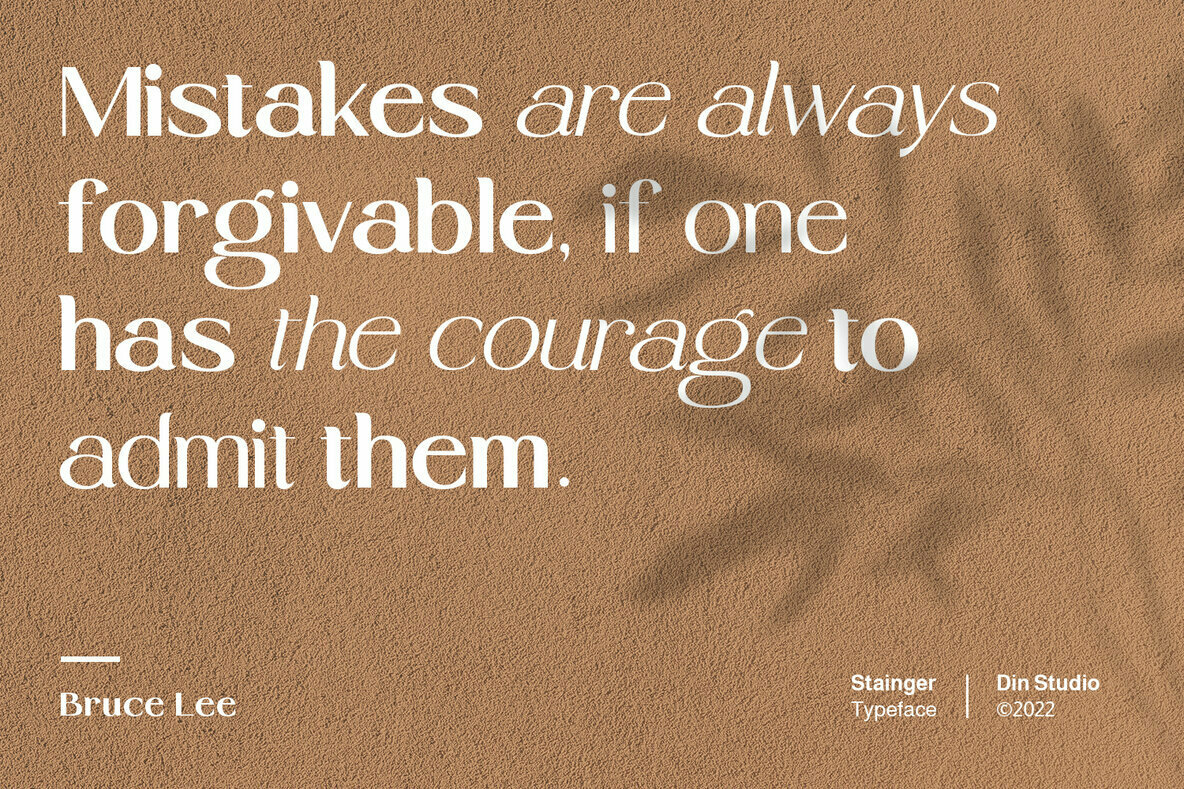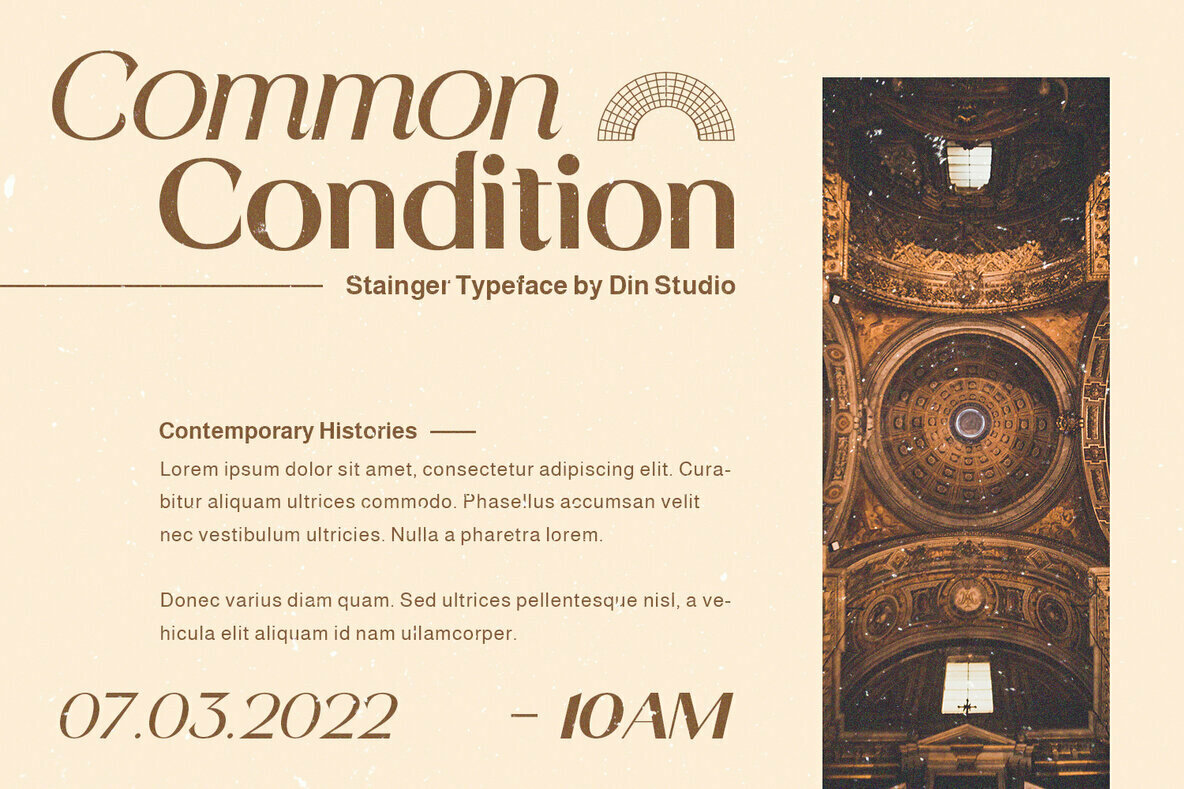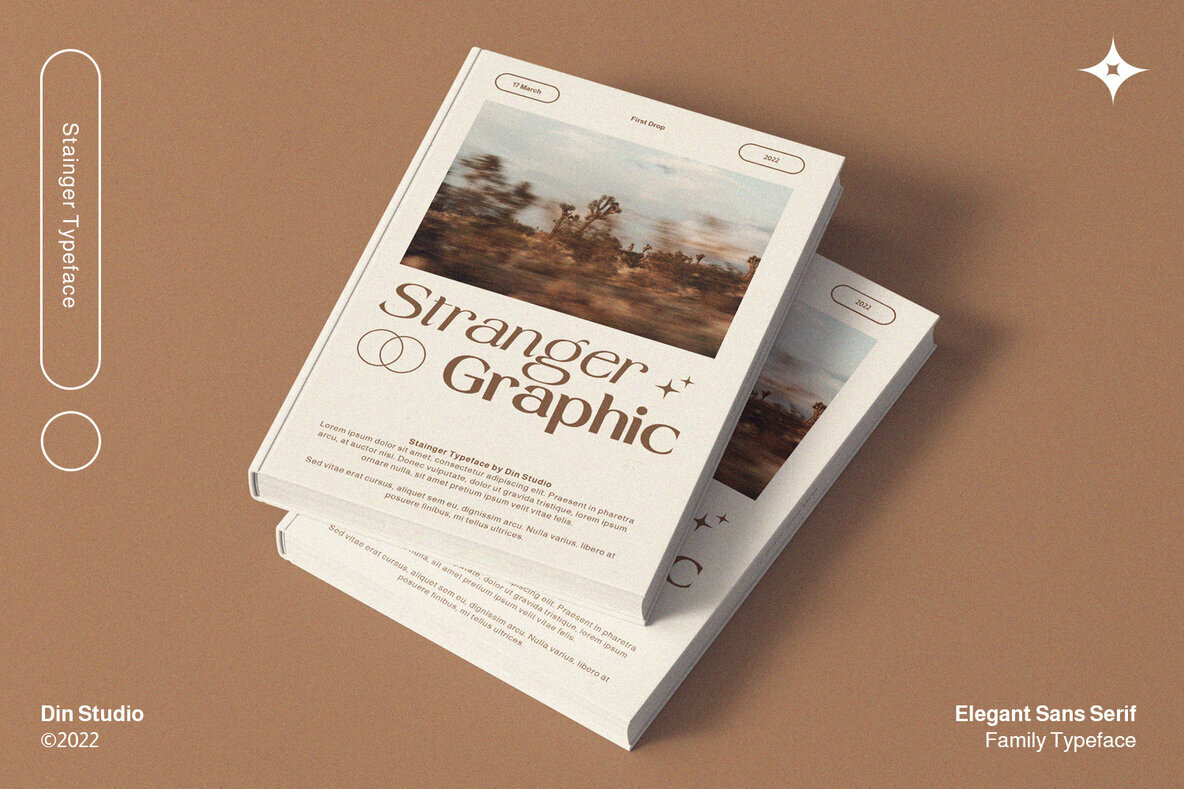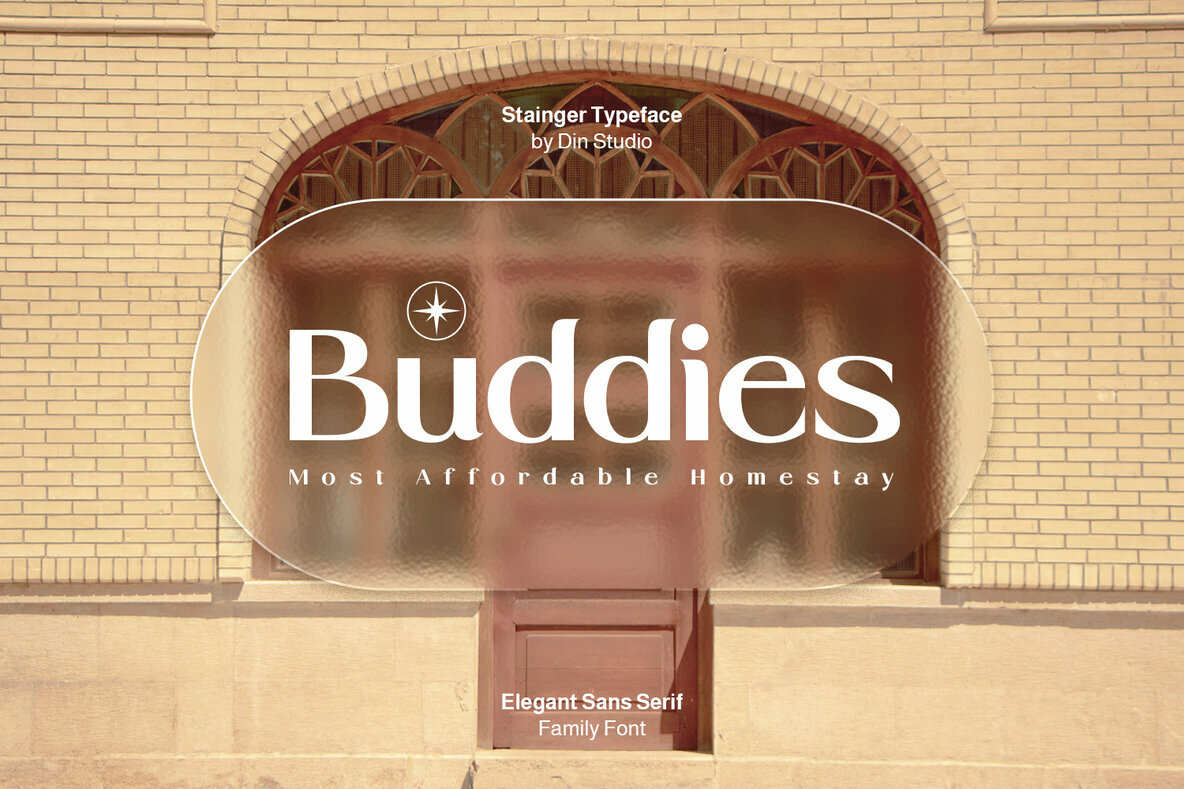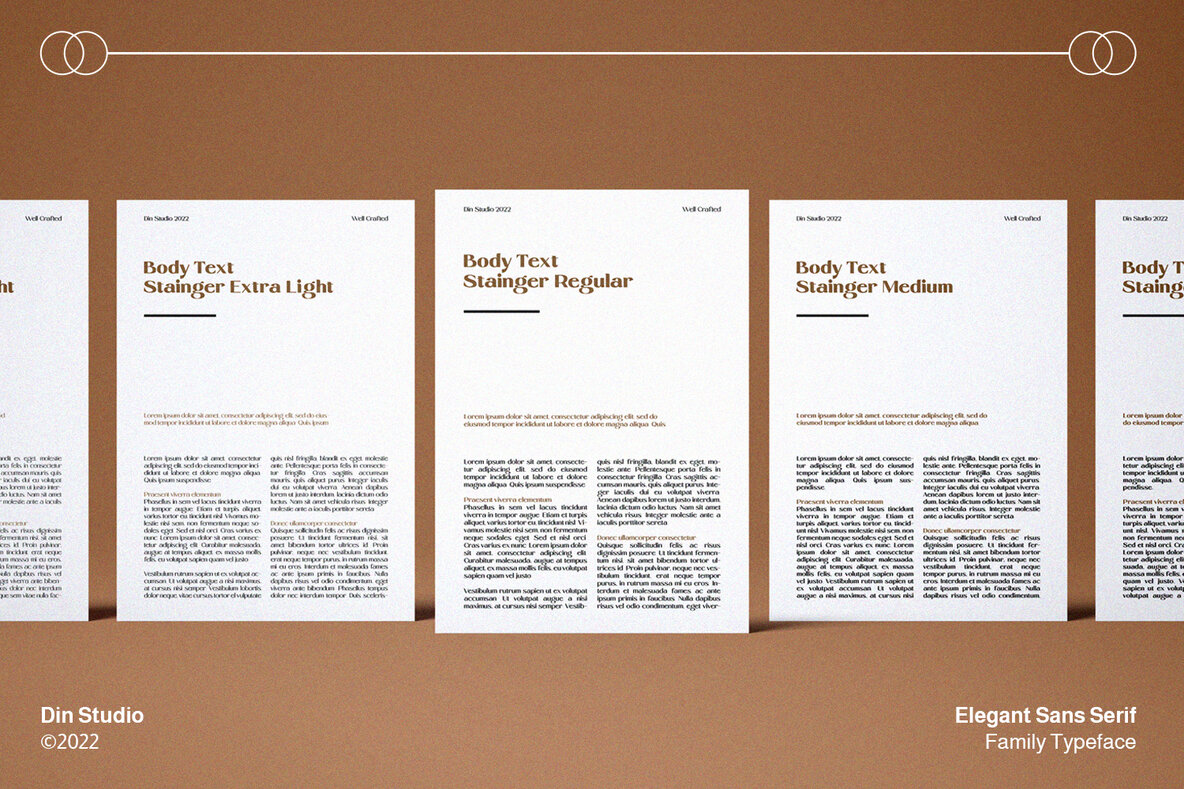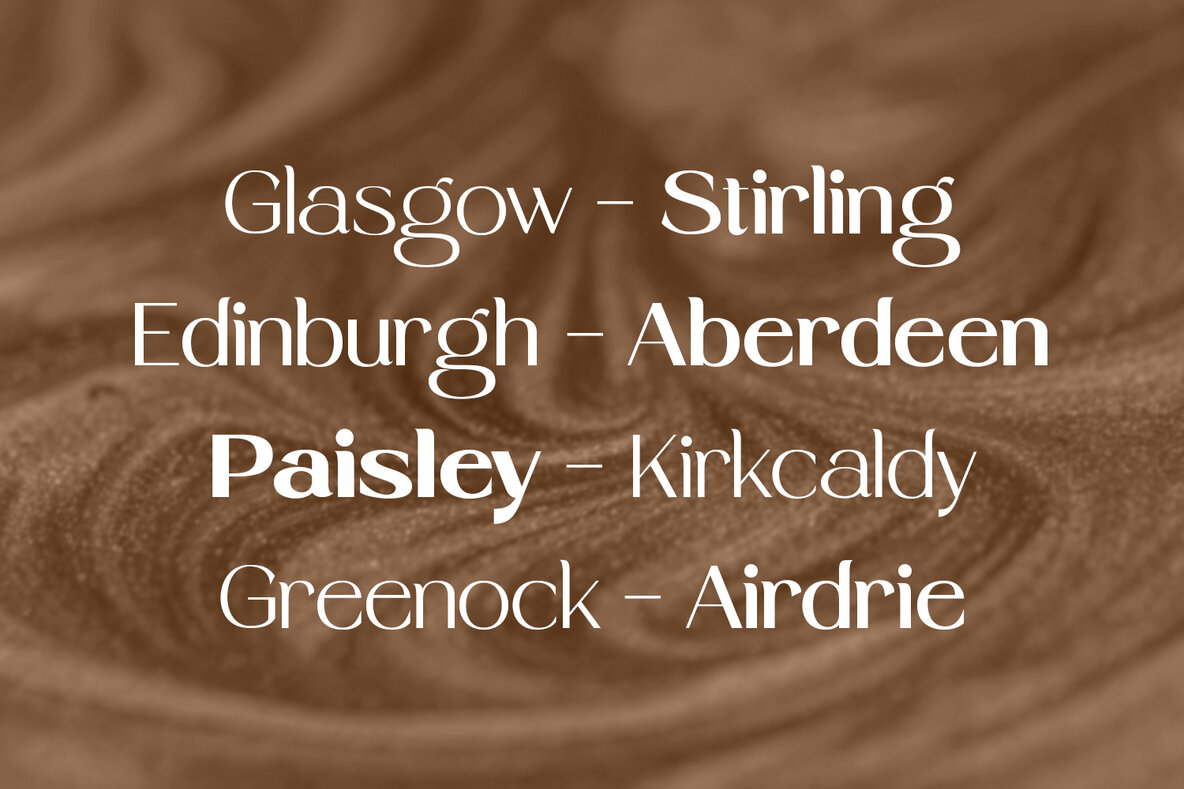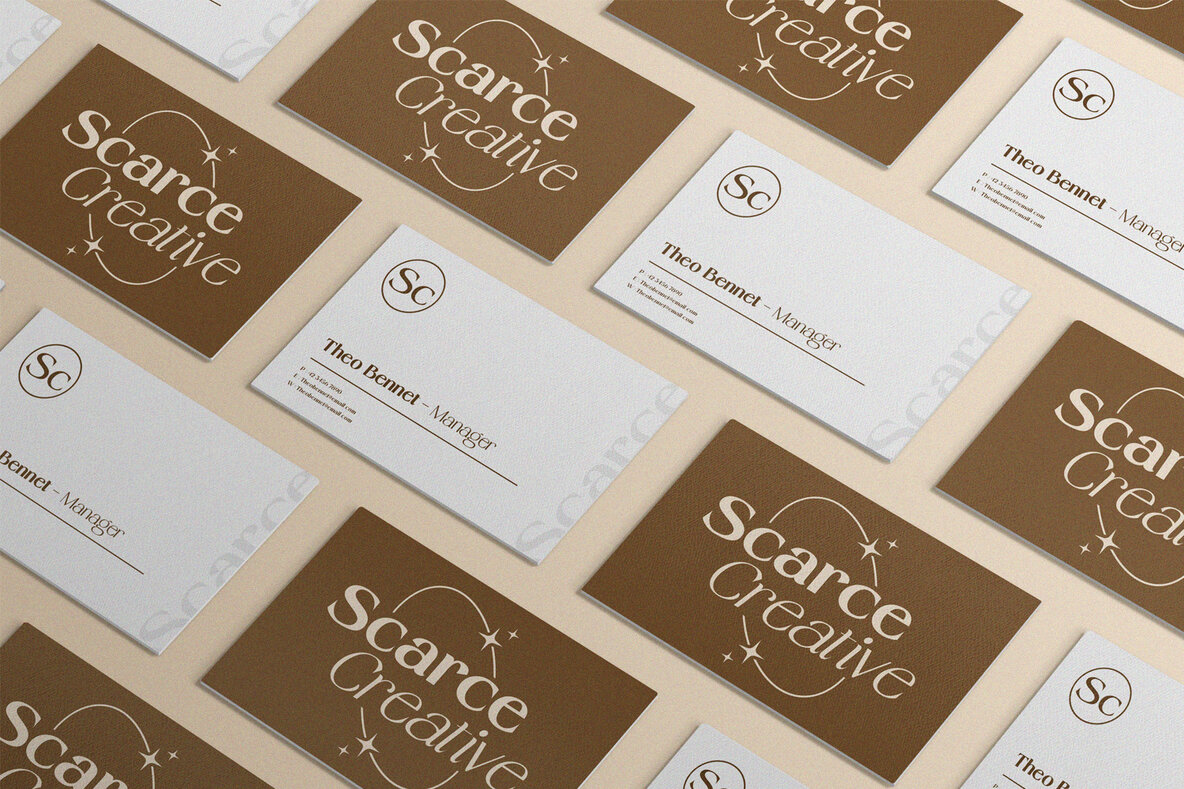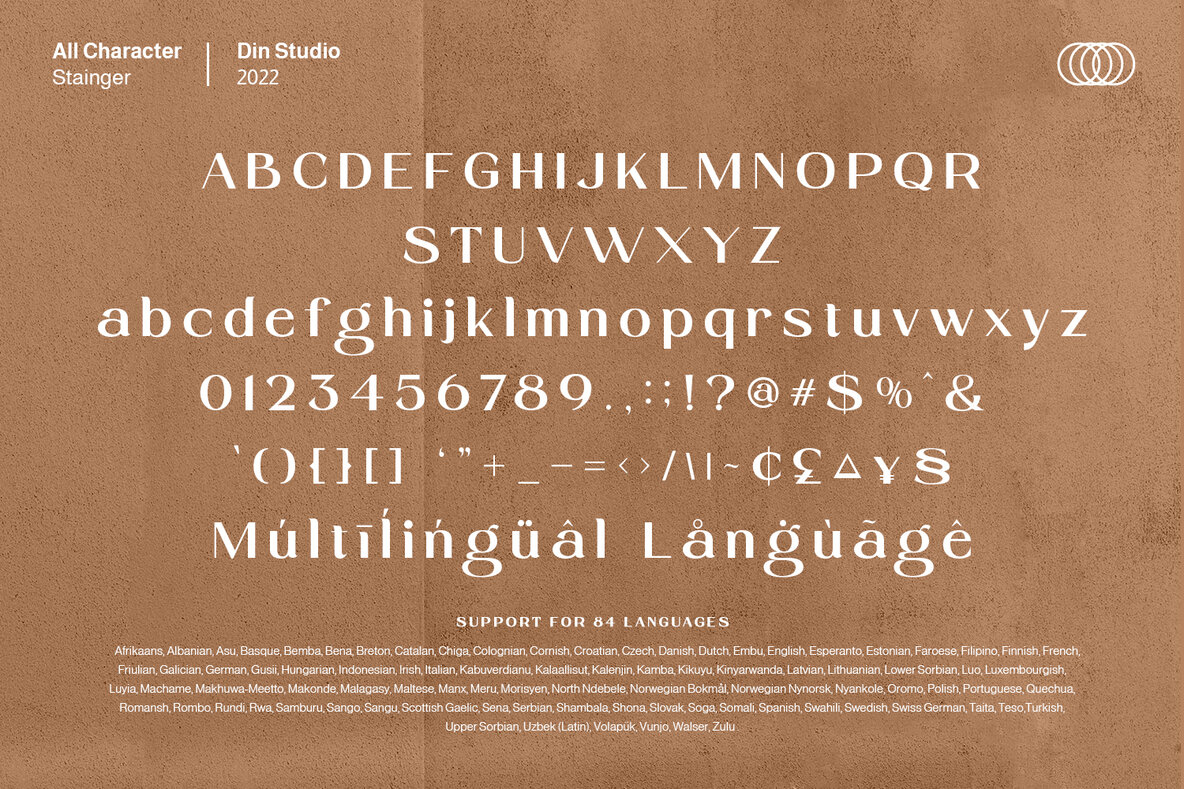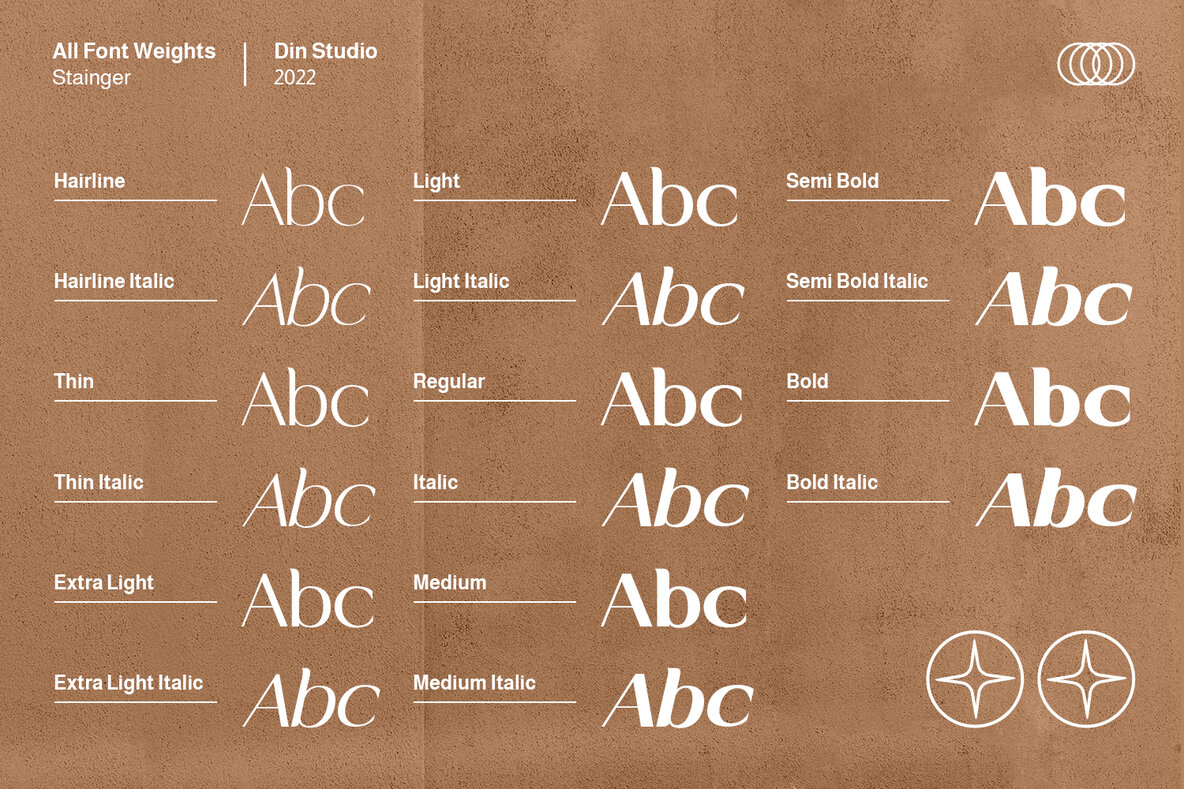
The art of accumulation. Thoughtfully crafted to meet the needs of all users, Stainger unfolds new ways of expressing and enhance your design. A font family that portrays simple, serene yet modern style. Stainger comes with 16 different weights, covering light, heavy, italic, and other stylings. It is simple, easy to read, and works equally as well in header and body text.
- Multilingual Supports
- Numerals and Punctuations